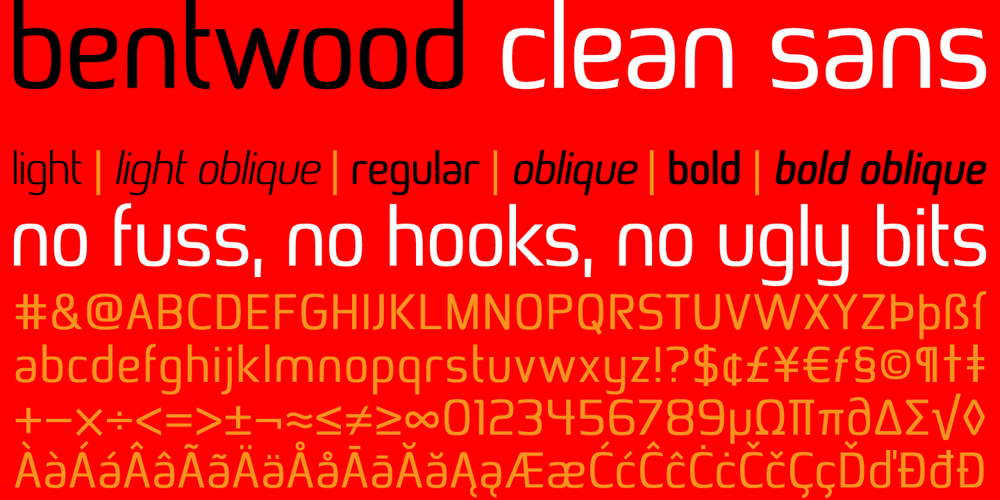
Bentwood
Bentwood font
Bentwood Font Family was designed by Jan Schmoeger and published by Paragraph. Bentwood contains 6 styles and family package options. This font takes its name and the overall shape from modern bentwood furniture, namely Scandinavian designs since the 1940s. The curved corners of the letterforms are practically hyperbolic, to convey the tension and strength of the bent plywood. These curves are meant to appear more dynamic than circular or elliptical segments of traditional sans serif fonts. The letterforms are simplified, without extra corners, stems, connections or hooks, yet remain legible at any size. Now at version 2, Bentwood contains Central/Eastern European, Baltic and Turkish character sets and more ligatures with Open Type functionality. Some minor corrections were made to letter shapes and positions, as well as to kerning and spacing.